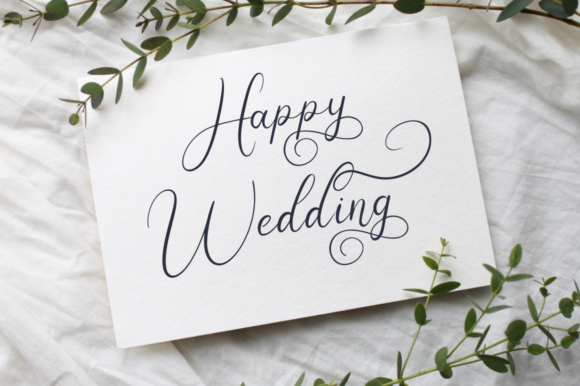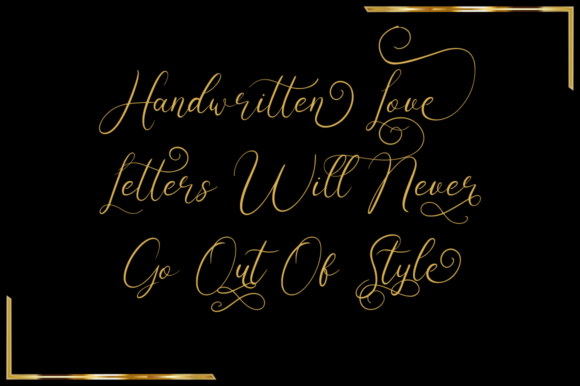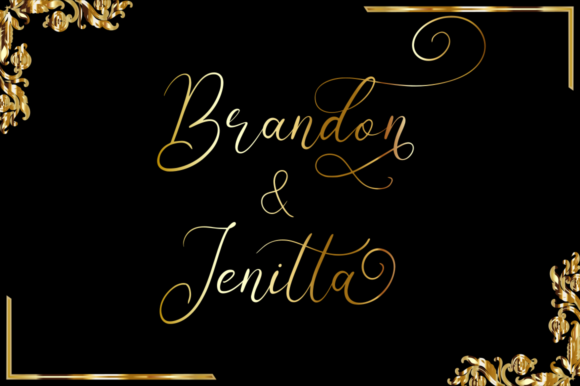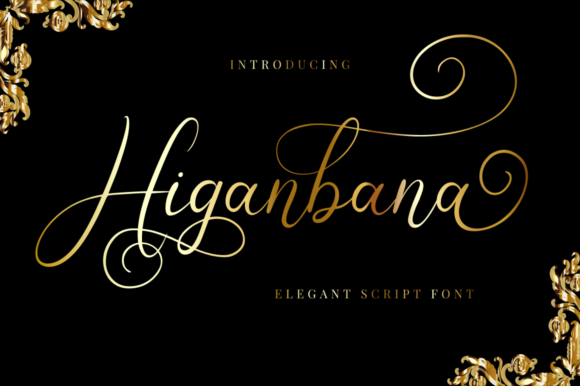
Introduction to Higanbana Font
Higanbana is an elegant and stylish font, made from natural handwriting, and carefully designed to get maximum results and is perfect for pairing with serif and sans serif fonts.
Higanbana is perfect for branding projects, logos, wedding designs, social media posts, advertisements, product packaging, product designs, label, photography, watermark, invitation, stationery, and any projects that need handwriting taste – PUA Encoded Characters – Fully accessible without additional design software.
Higanbana Font offers exceptional quality and versatility, making it a valuable addition to your design toolkit. Whether you’re creating for personal projects or commercial use, Higanbana Font delivers professional results.